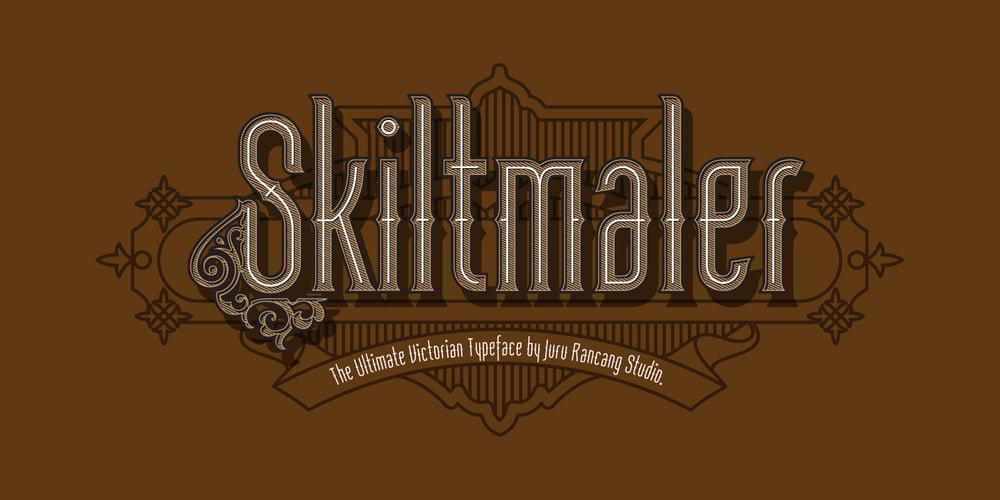
Skiltmaler Font Family was designed by Ihsan Khairul Lazuardi and published by Juru Rancang Studio. Skiltmaler contains 4 styles and family package options. Introducing Skiltmaler – a typeface that embodies the decorative arts style of the Victorian era, spanning from 1837 to 1901. It was during this period that fly poster typography emerged, characterized by vibrant colors and large font sizes crafted from movable metal type. Additionally, wood was utilized to create two-colored typefaces, often employed in the creation of the three-dimensional style seen on posters to produce drop shadows.Skiltmaler is effective not only for regular-sized text but particularly excels in large displays, short words, or when incorporating a few individual characters into a design.